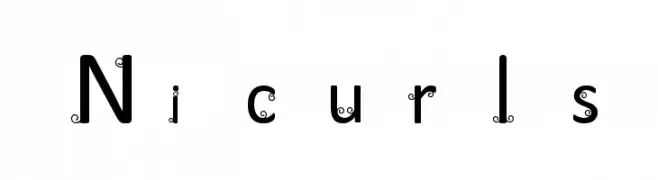
( Fonts by Andrew Hart - dirt2.com )
An ornate and dramatic font with intricate swirls and high contrast.
( Fonts by David Kerkhoff - www.hanodedphotography.com )
An ornate and decorative font with intricate swirls and flourishes.
A whimsical and decorative font with playful swirls and curls.
( Fonts by David Kerkhoff - www.hanodedphotography.com )
A whimsical, hand-drawn font with decorative swirls and textured hatching.
( Fonts by Maelle.K - Thomas Boucherie )
Intricate decorative elements with swirls, flourishes, and heart motifs.
( Fonts by Sam Wang )
A whimsical handwritten font with elegant curves and playful swirls.